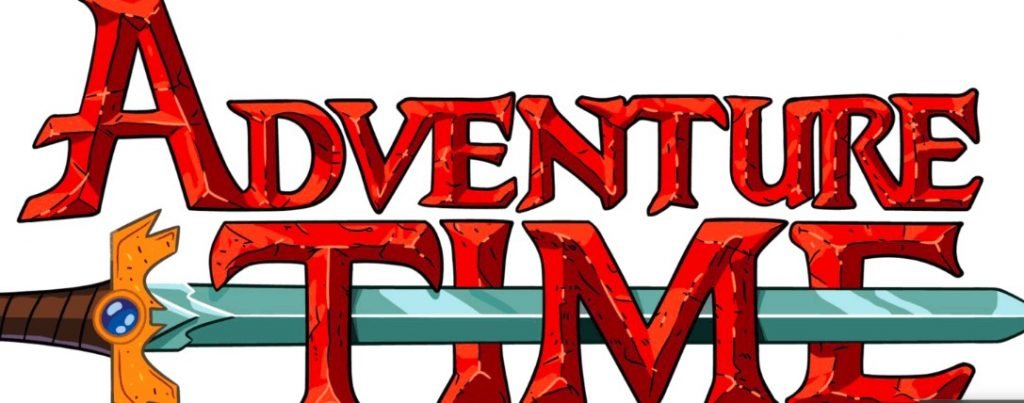
The font can be use in creating 3d logos that is the beneficial part of thisf ont. The font is most download and great font around the world. If you are new
Let's dive into discovering the ultimate logo display typeface Once you incorporate this font into your project, you won't feel the need to switch to another font for that extra touch of awesomeness and uniqueness. It resembles the charming architects daughter font, perfect for pairing. If you want your work to stand out, this is the font for you
The font can be use in creating 3d logos that is the beneficial part of thisf ont. The font is most download and great font around the world. If you are new designer in the field of graphic designs then this font for you to build your project with fully dedication and with great idea and assests.